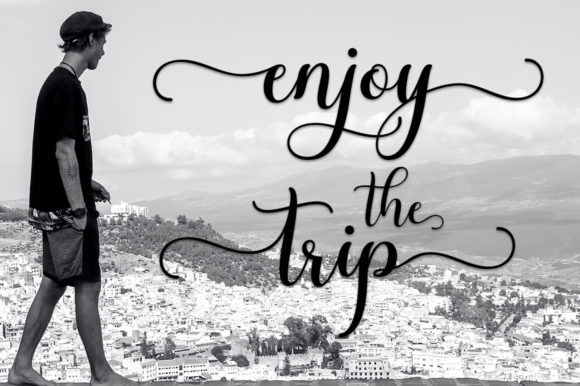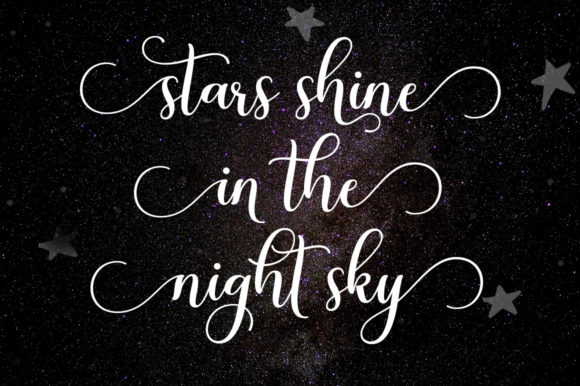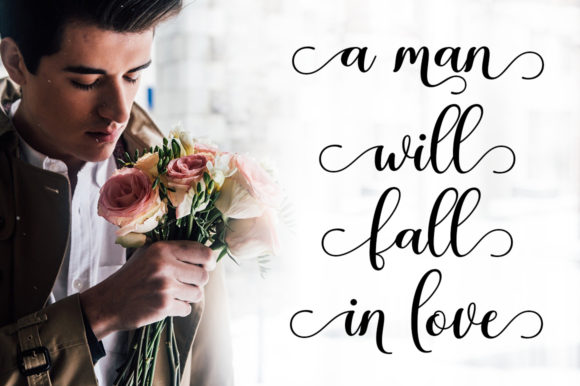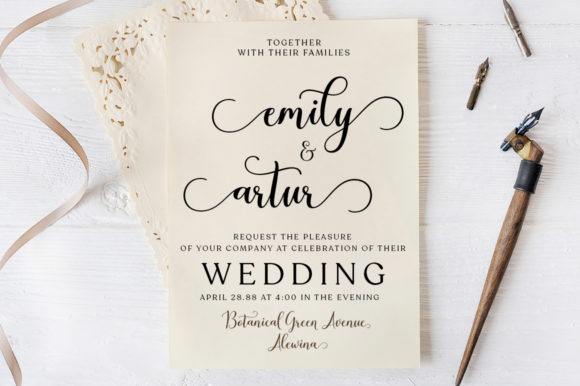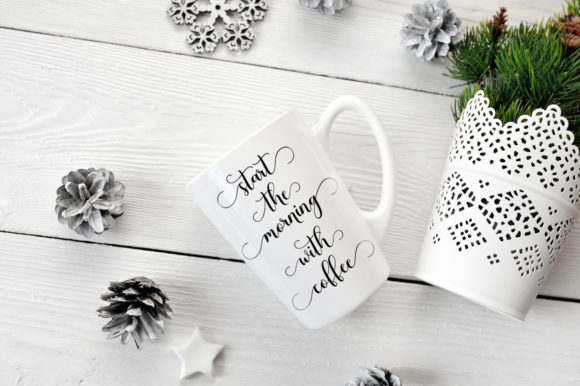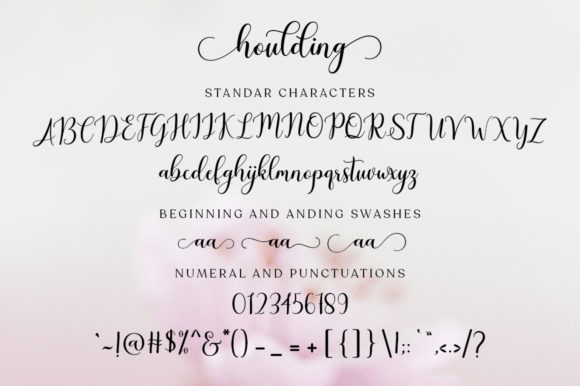
Introduction to Houlding Font
Houlding is a romantic and graceful script font.
It looks ravishing on a variety of designs requiring a personalized style, such as wedding invitations, thank you cards, weddings, greeting cards, logos and so on This font is PUA encoded which means you can access all of the glyphs and swashes with ease.